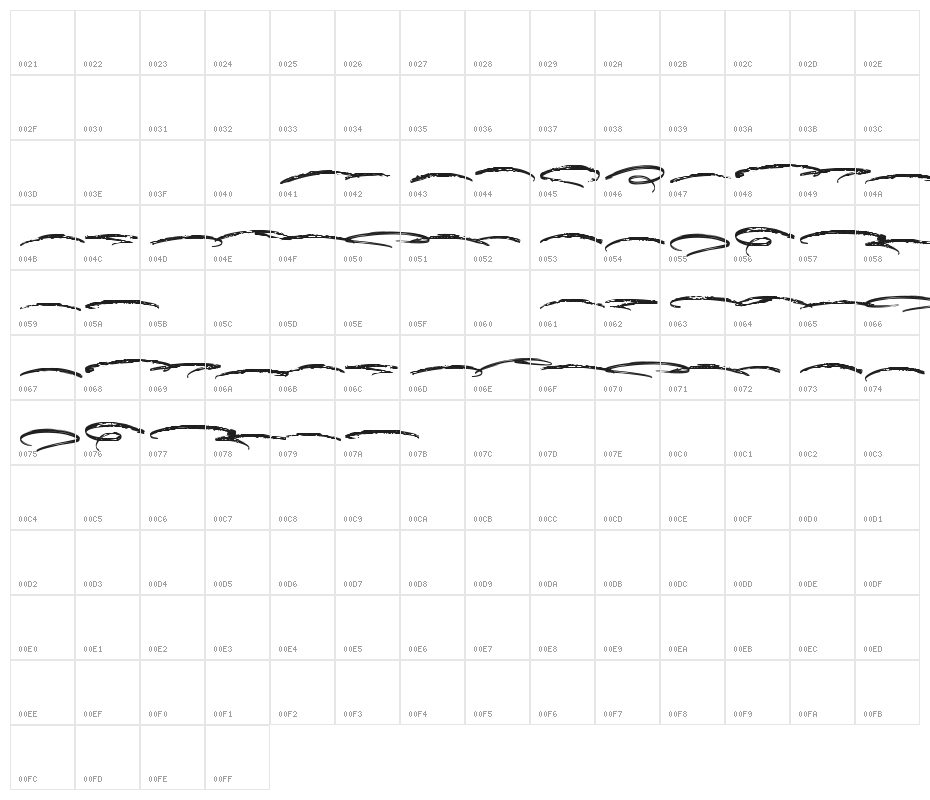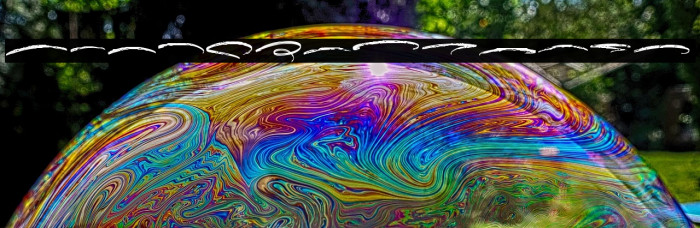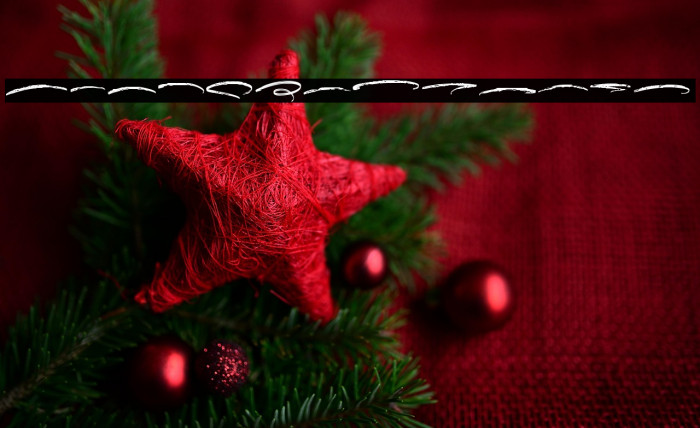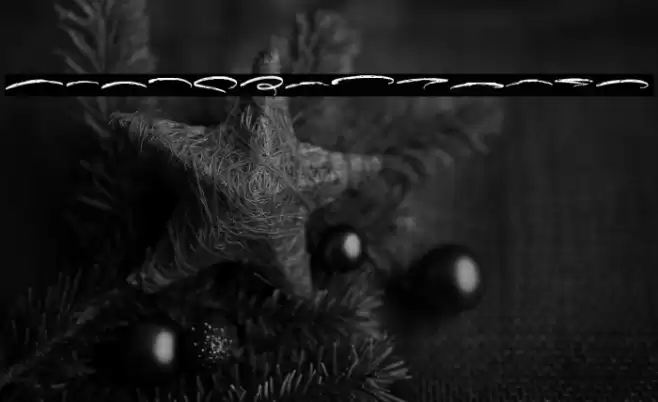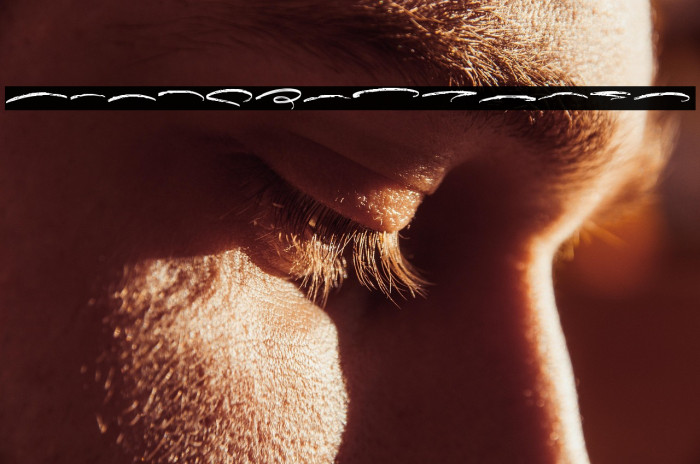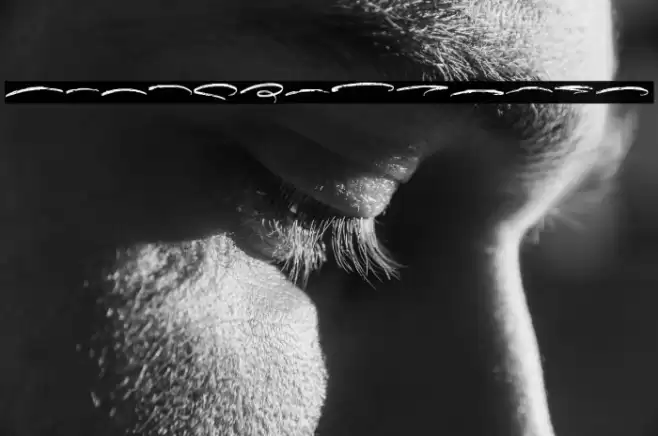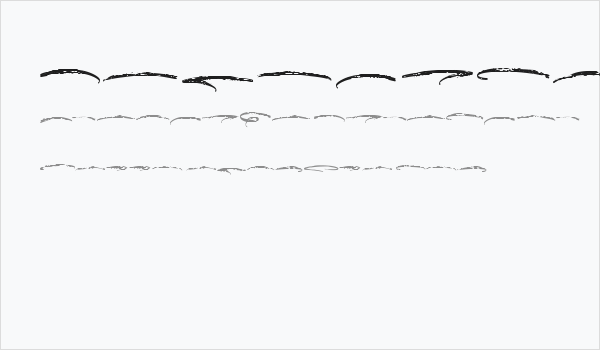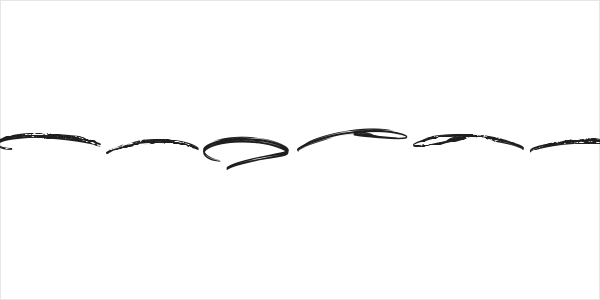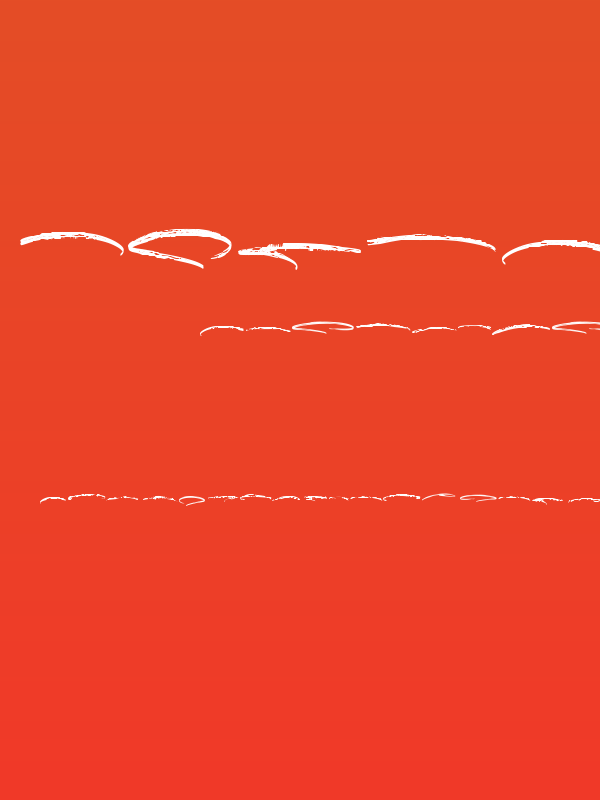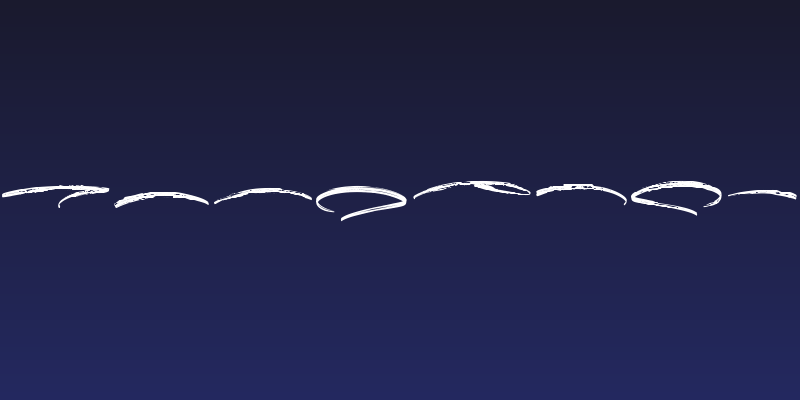
DexotickUnderlines Font
DexotickUnderlines Description
This is not a valid font. The image contains decorative underlines that resemble cursive handwriting, characterized by flowing, continuous lines with loops and swirls. These elements are purely ornamental and do not represent any alphanumeric characters or symbols typically found in a font set. The style is reminiscent of calligraphic embellishments often used to accentuate text in invitations or certificates.
Use CaseDecorative accents in design projects.
Proposed ProjectsThese decorative elements could be used in graphic design projects such as invitations, greeting cards, or certificates to add a touch of elegance and sophistication.